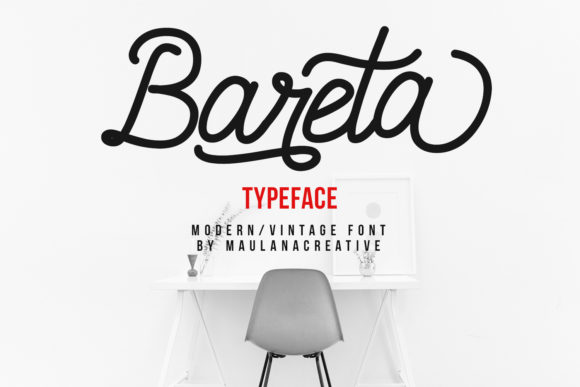
Indulge in the mesmerizing artistry of Bareta, a captivating script font that echoes the fluidity of ink on parchment. Each stroke dances with elegance, leaving a trail of enchantment in its wake.
Crafted by the visionary minds at Maulana Creative, Bareta is a font that stirs the soul. Its meticulously designed characters, imbued with the charm of handwritten letters, possess an allure that transcends the ordinary.
Step into a world where creativity flourishes and self-expression takes flight. With Bareta, the written word becomes an art form, a captivating symphony of curves and flourishes that captivates the senses.
Whether you're designing a signature logo that commands attention or crafting personalized stationery that exudes sophistication, Bareta is the perfect choice. Its versatility knows no bounds, lending its artistry to a myriad of creations, from magazine covers that tantalize the eye to clothing designs that speak to the heart.
Embrace the allure of Bareta, a font that empowers you to transform your words into visual masterpieces. Let its enchanting characters guide your imagination and create designs that leave a lasting impression.